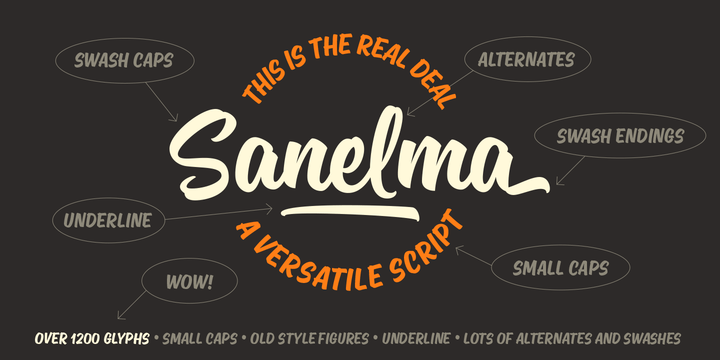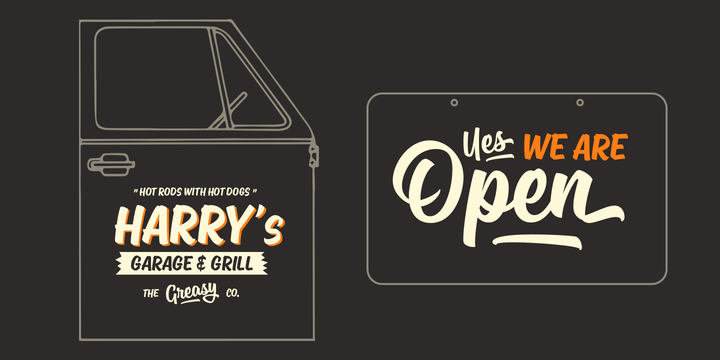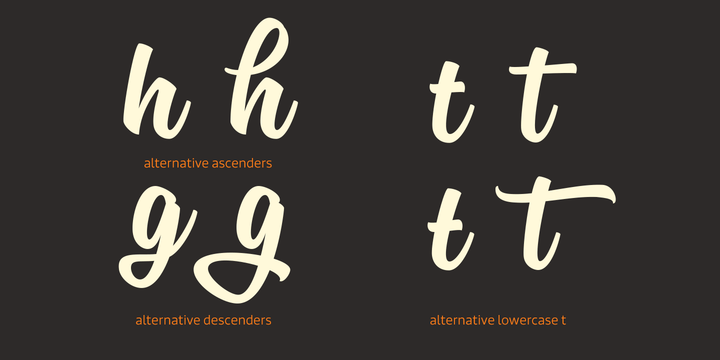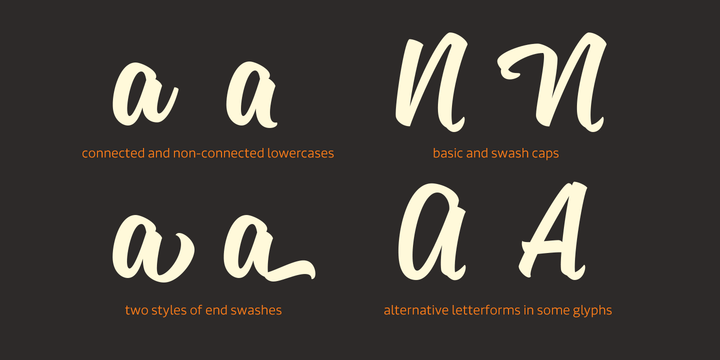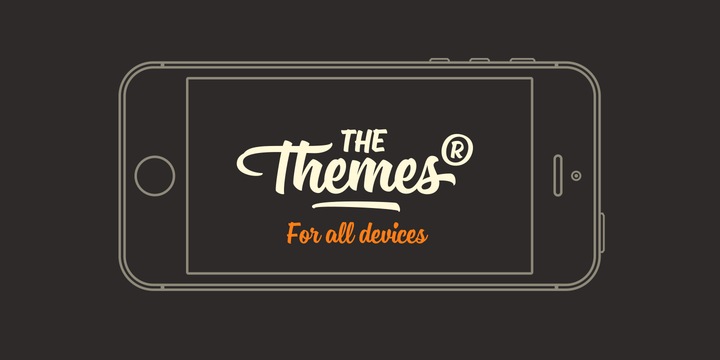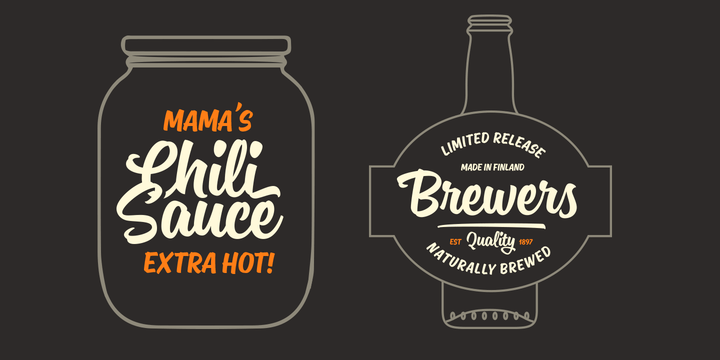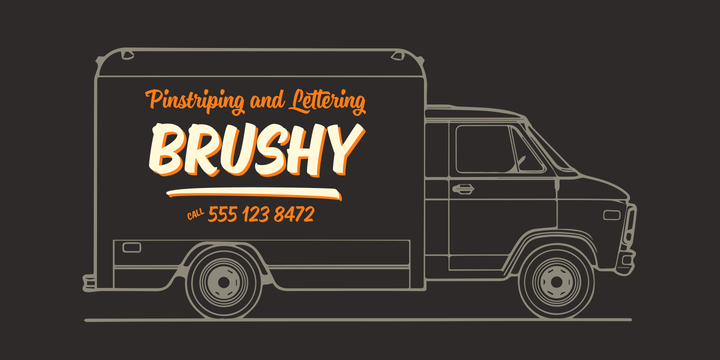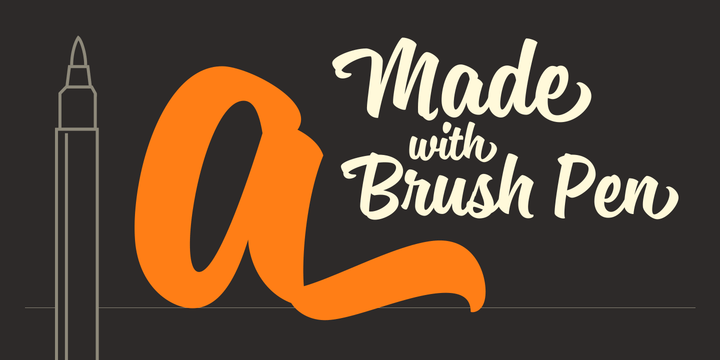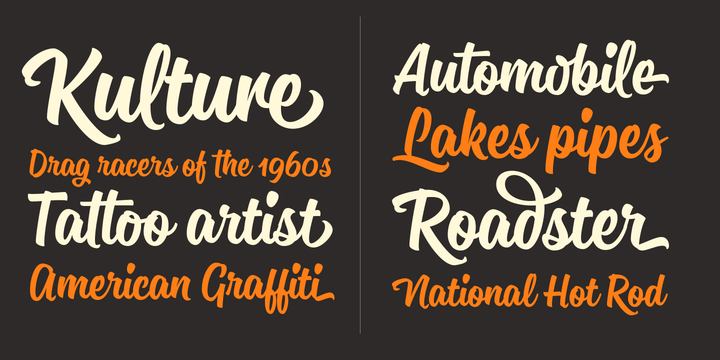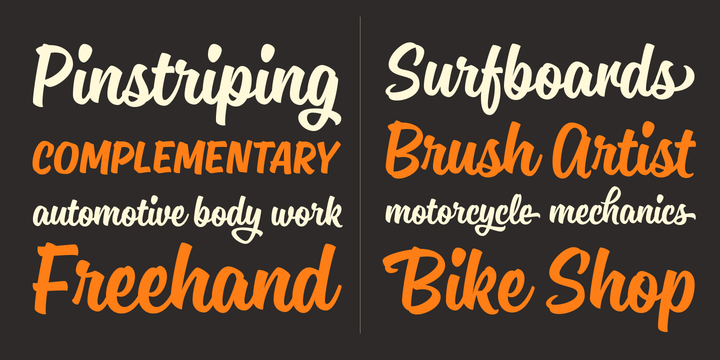
Sanelma
Font Family by Mika Melvas
Sanelma is a brush script inspired by Hot Rod lettering and sign painting. Sanelma is a very versatile script: It includes two different styles of end swashes, swash caps, small caps, lots of alternate characters and underline option. All in all it has over 1,200 glyphs.
Sanelma is bouncy and smooth and has a very organic feel. You have lot of options to customize it and that makes it perfect for logos, packages and titles.